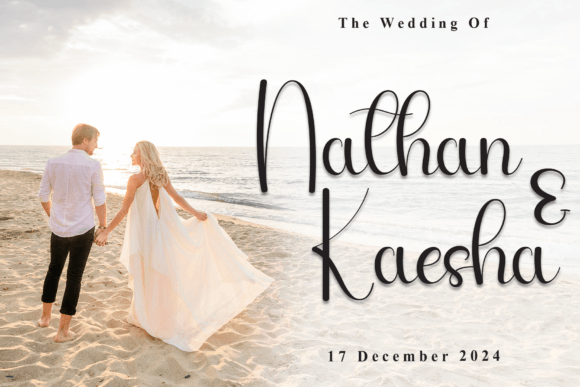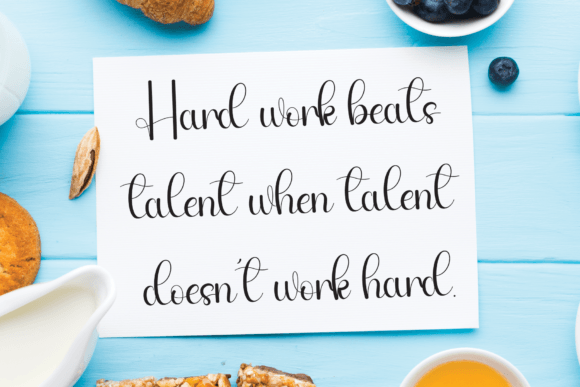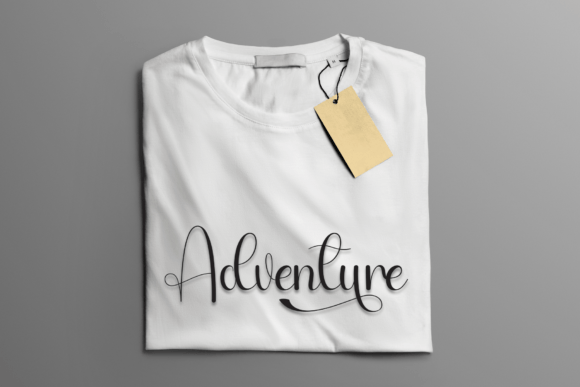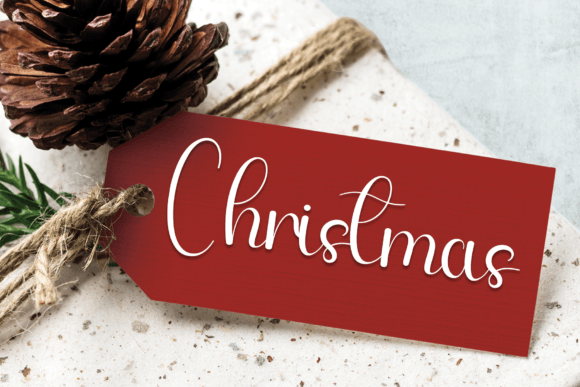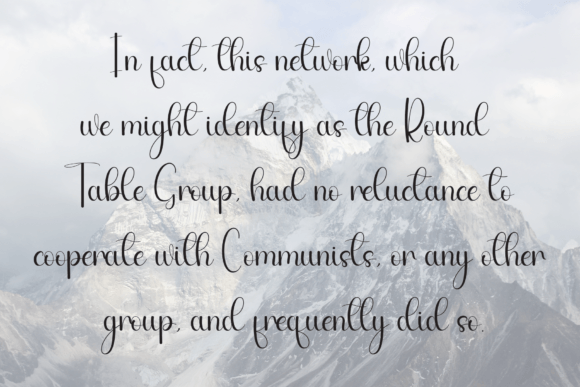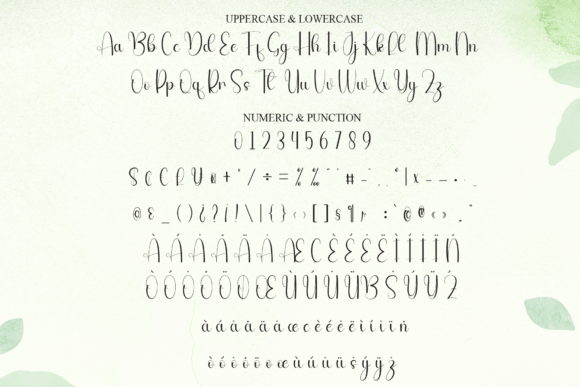
Introducing Sweet Scrawl: The Ultimate Handwritten Display Font for Whimsical Designs
Are you on the hunt for a font that exudes warmth, friendliness, and a dash of playfulness? Look no further than Sweet Scrawl, a delightful handwritten display font that is sure to capture the hearts of designers and crafters alike. With its inviting charm and authentic cute appeal, Sweet Scrawl is the perfect choice for creating whimsical wedding invitations, heartfelt cards, and any design that requires a vibrant touch of fun.
The Story Behind Sweet Scrawl
Sweet Scrawl is more than just a font – it’s an experience. Its carefully crafted strokes and curves are designed to evoke a sense of joy and warmth, making it the ideal choice for designers and crafters who want to add a personal touch to their creations. Whether you’re working on a wedding invitation, a greeting card, or a social media graphic, Sweet Scrawl is sure to bring a smile to your audience’s faces.
What Makes Sweet Scrawl So Special?
So, what sets Sweet Scrawl apart from other fonts? Here are just a few reasons why this delightful handwritten display font is a must-have for designers and crafters:
- Unique and Authentic Style: Sweet Scrawl boasts a one-of-a-kind style that is both authentic and cute. Its handwritten strokes and curves give it a personal touch that is hard to replicate with other fonts.
- Versatile and Adaptable: Whether you’re working on a formal wedding invitation or a playful social media graphic, Sweet Scrawl is versatile enough to adapt to any design style or theme.
- Easy to Read and Understand: Despite its whimsical nature, Sweet Scrawl is surprisingly easy to read and understand, making it perfect for designs that require a clear and concise message.
- Perfect for Adding a Personal Touch: With Sweet Scrawl, you can add a personal touch to your designs that is sure to resonate with your audience.
How to Use Sweet Scrawl in Your Designs
Now that you’re excited about Sweet Scrawl, let’s talk about how to use it in your designs. Here are a few ideas to get you started:
- Wedding Invitations: Sweet Scrawl is perfect for creating whimsical wedding invitations that set the tone for a fun and playful celebration.
- Greeting Cards: Add a personal touch to your greeting cards with Sweet Scrawl, making them extra special for birthdays, holidays, or get-well wishes.
- Social Media Graphics: Use Sweet Scrawl to add a touch of fun and whimsy to your social media graphics, making them stand out in a crowded feed.
- Branding and Packaging: Sweet Scrawl can also be used in branding and packaging designs to add a personal touch and create a memorable brand identity.
Tips and Tricks for Working with Sweet Scrawl
To get the most out of Sweet Scrawl, here are a few tips and tricks to keep in mind:
- Pair with Other Fonts: Sweet Scrawl pairs well with other fonts, so don’t be afraid to combine it with other typefaces to create a unique and interesting design.
- Use it Sparingly: While Sweet Scrawl is a beautiful font, it can be overwhelming if used too much. Use it sparingly to create a clear visual hierarchy in your design.
In conclusion, Sweet Scrawl is a delightful handwritten display font that is sure to bring a touch of whimsy and fun to your designs. With its unique and authentic style, versatility, and ease of use, Sweet Scrawl is perfect for designers and crafters who want to add a personal touch to their creations. So why wait? Immerse yourself in the inviting charm of Sweet Scrawl and breathe a vibrant touch of fun into your designs!